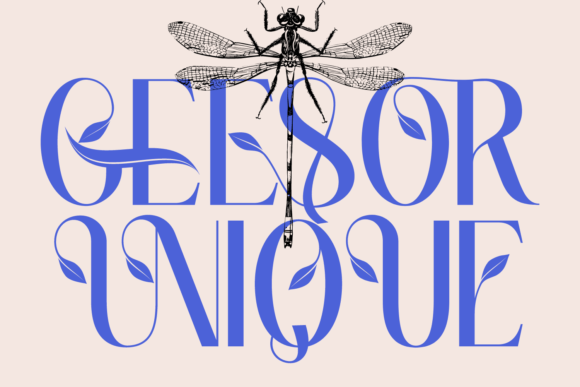
Geesor Unique Font: Elevate Your Designs with a Delicate Floral Touch
In the world of typography, fonts play a crucial role in conveying the tone and personality of a brand or design. When it comes to creating visually stunning and elegant designs, the right font can make all the difference. This is where Geesor Unique Font comes in – a delicate floral font that embodies the essence of nature with its intricate flowers and leaves. In this article, we’ll dive into the world of Geesor Unique Font, exploring its features, benefits, and uses, as well as provide tips on how to make the most of this beautiful font.
What is Geesor Unique Font?
Geesor Unique is a delicate floral font that features a nature concept with leaf swashes. This elegant and feminine font is suitable for all kinds of headlines and decorative purposes. Its unique style adds a friendly feel to any project, making it perfect for designers looking to create beautiful and eye-catching designs.
Benefits of Using Geesor Unique Font
So, what makes Geesor Unique Font stand out from the rest? Here are just a few benefits of using this stunning font:
- Elegant and Feminine: Geesor Unique Font boasts an elegant and feminine style that’s perfect for designs that require a touch of sophistication and glamour.
- Nature-Inspired: The font’s nature-inspired design, complete with flowers and leaves, adds a unique and refreshing touch to any design.
- Versatile: Geesor Unique Font is suitable for a wide range of design projects, from posters and product packaging to logos and more.
- Easy to Read: Despite its intricate design, Geesor Unique Font is easy to read, making it perfect for headlines and titles.
Uses of Geesor Unique Font
Geesor Unique Font is a versatile font that can be used in a variety of design projects. Here are some ideas to get you started:
- Posters: Create stunning posters that showcase your brand’s personality with Geesor Unique Font.
- Product Packaging: Add a touch of elegance and sophistication to your product packaging with this beautiful font.
- Logos: Create a unique and memorable logo that stands out from the crowd with Geesor Unique Font.
- Wedding Invitations: Make your wedding invitations truly special with this delicate and romantic font.
Tips and Tricks for Using Geesor Unique Font
To make the most of Geesor Unique Font, here are some tips and tricks to keep in mind:
- Pair with Other Fonts: Experiment with pairing Geesor Unique Font with other fonts to create a unique and visually appealing design.
- Use in Headlines: Use Geesor Unique Font in headlines and titles to add a touch of elegance and sophistication.
- Experiment with Colors: Don’t be afraid to experiment with different colors and textures to add depth and interest to your design.
- Keep it Simple: Remember, sometimes less is more. Keep your design simple and clean to let the font shine.
Get Inspired by Geesor Unique Font
Geesor Unique Font is more than just a font – it’s a design statement. With its delicate floral design and nature-inspired theme, this font is sure to inspire your next design project. Whether you’re looking to create a beautiful poster, elegant product packaging, or a unique logo, Geesor Unique Font is the perfect choice.
| Font Name | Geesor Unique Font |
| Author | 177Studio |
In conclusion, Geesor Unique Font is a stunning and versatile font that’s perfect for designers looking to add a touch of elegance and sophistication to their designs. With its delicate floral design, nature-inspired theme, and easy-to-read style, this font is sure to elevate your designs to the next level. So why wait? Get inspired by Geesor Unique Font and create something truly beautiful today!